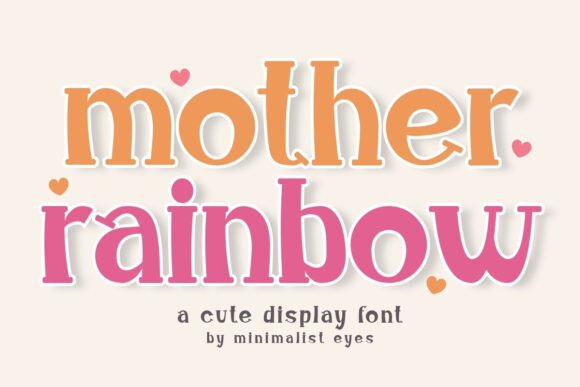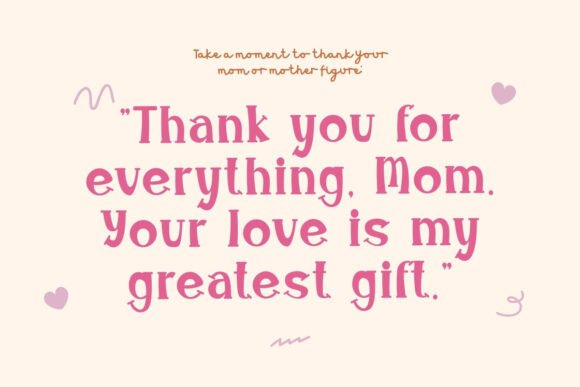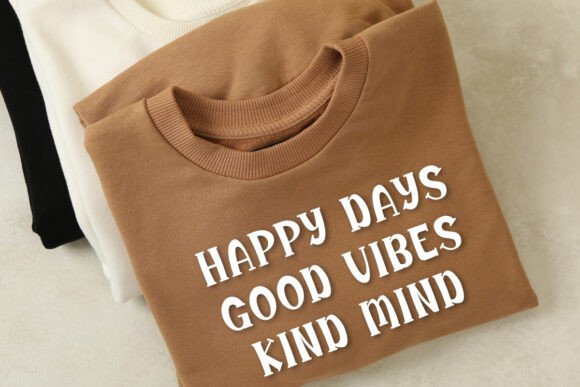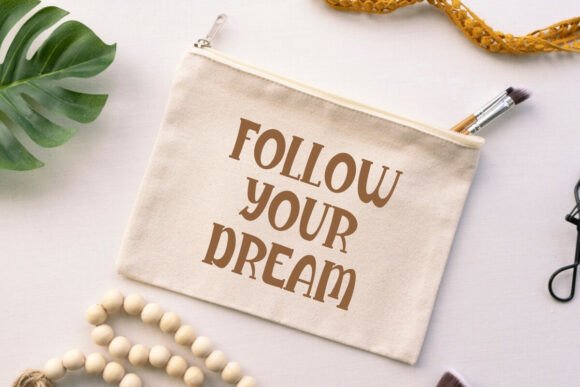
Mother Rainbow Font
About the Mother Rainbow Font
The wait is over! The incredible Mother Rainbow Font is now available for your design toolkit. Mother Rainbow is a bold and cute display font. The wide characters and chunky serifs make this font ideal for eye-catching designs. You can use it for headlines, poster, packaging, merchandise, quotes, t-shirt typography,Mother Day’s quotes, banners,Valentine Day’s, product labels, and many more.
Its playful, rounded serifs and bold weight make it perfect for projects needing a friendly, approachable feel. Consider it for children’s books, branding for sweet treats, or cheerful invitations. Avoid using it for large blocks of body text; its boldness can become overwhelming in extended reading.
Mother Rainbow pairs well with clean sans-serif fonts like Open Sans for body copy, creating a balanced contrast. For a more playful pairing, consider a handwritten script font like Great Vibes, but use it sparingly as an accent. Geometric sans-serifs, such as Futura, can also provide a modern counterpoint to the font’s organic curves.
Ultimately, Mother Rainbow’s inherent charm is best suited for designs that prioritize visual impact and a friendly, approachable aesthetic.
Mother Rainbow Font Usage Examples
Mother Rainbow Font Example